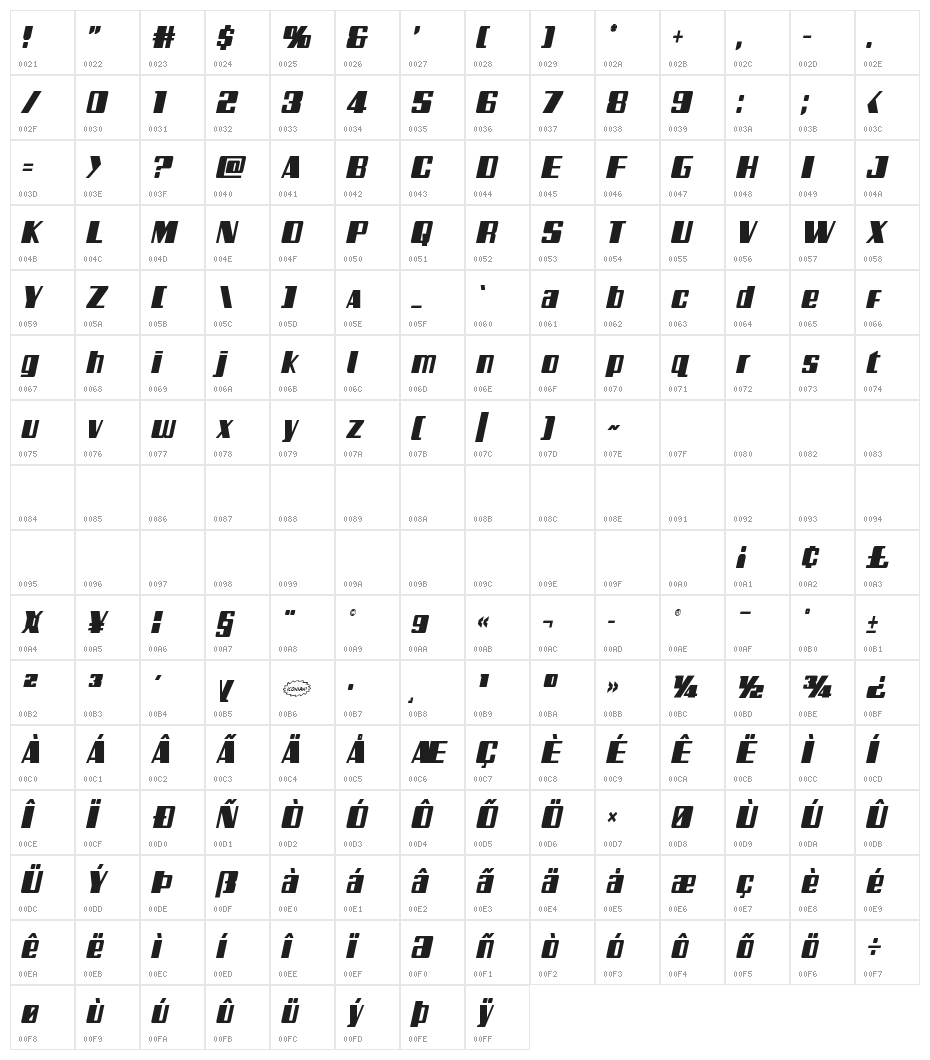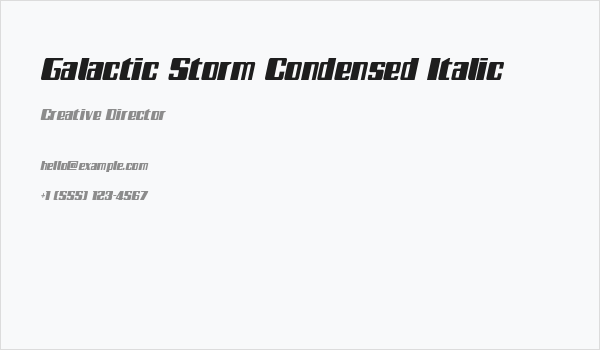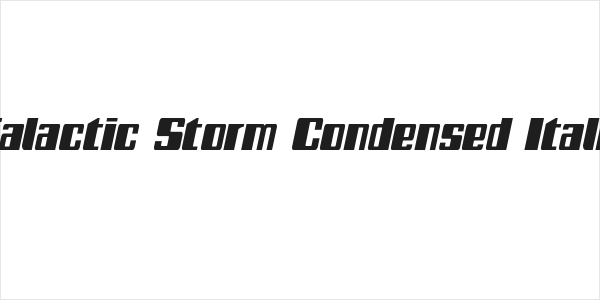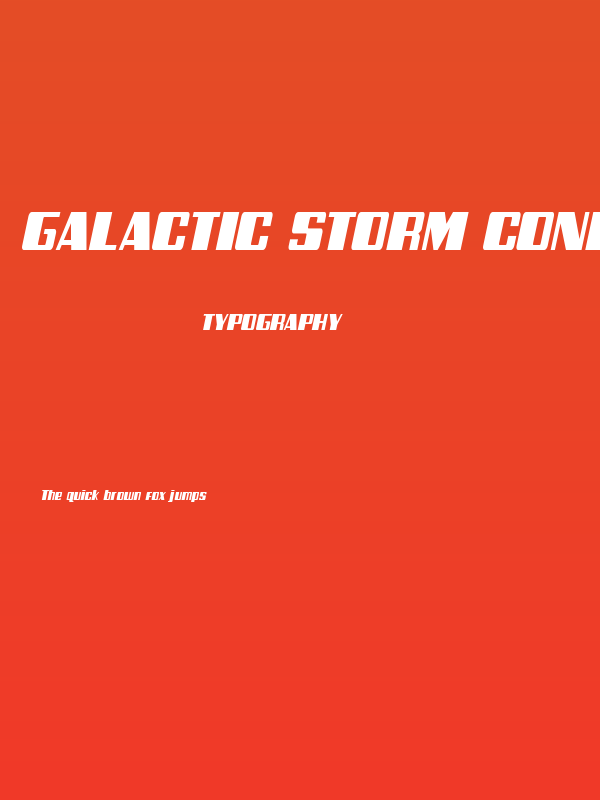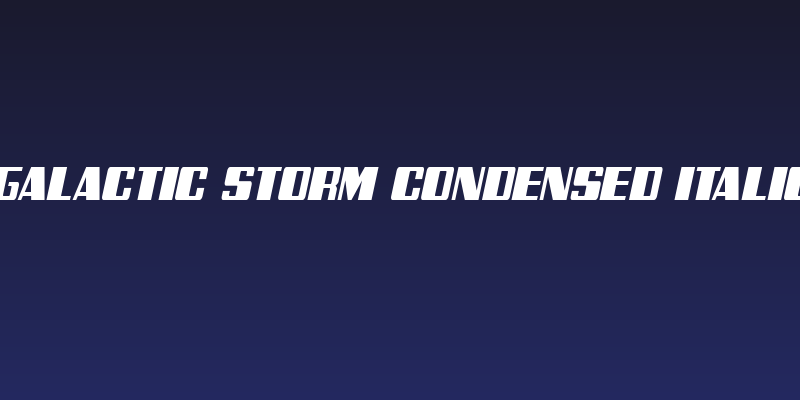
Galactic Storm Condensed Italic Font
Galactic Storm Condensed Italic Description
This font features a bold, italicized style with a futuristic and dynamic appearance. The condensed letterforms are sharply angled, giving a sense of motion and speed. The uppercase and lowercase letters maintain a consistent slant, enhancing the italic effect. The numerals are equally bold, with a uniform height that aligns well with the uppercase letters. Special characters are designed to match the overall aesthetic, ensuring a cohesive look across all glyphs. This font's strong presence makes it ideal for impactful designs.
| Proposed Projects | Ideal for sci-fi themed posters, video game titles, and dynamic branding projects. |